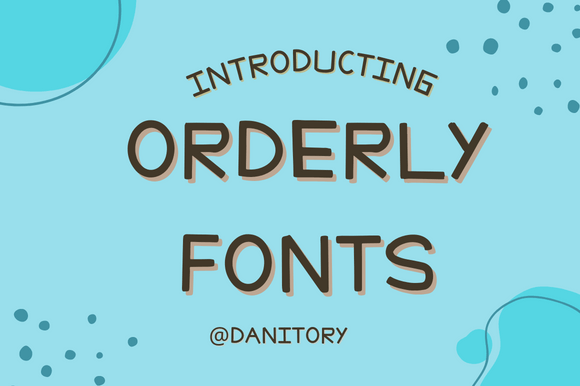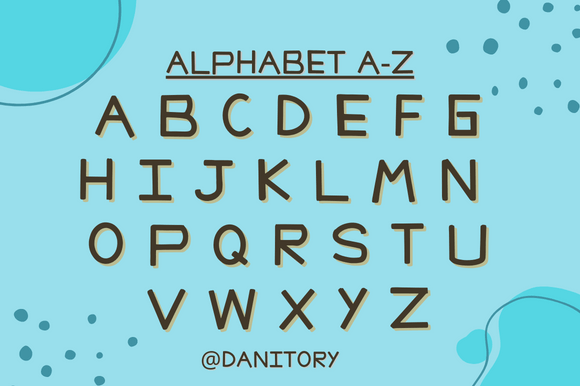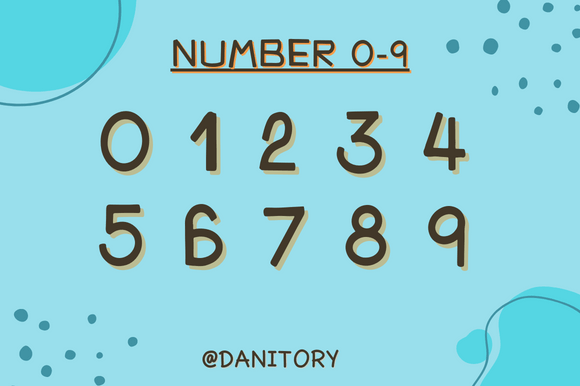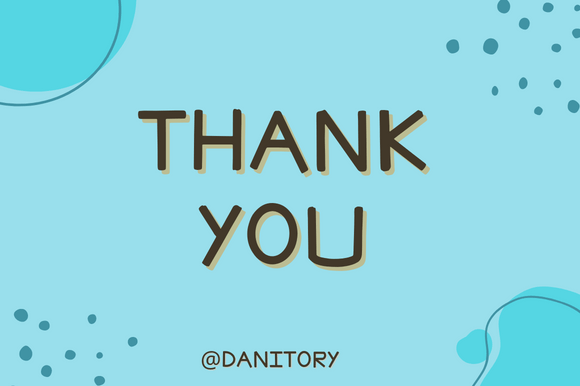
Orderly Font
About Orderly Font
Orderly is a handwritten font characterized by a whimsical and fun personality. Whether you’re using it for crafts, digital design, presentations, or making greeting cards, this font has the potential to become your favorite go-to font, no matter the occasion!